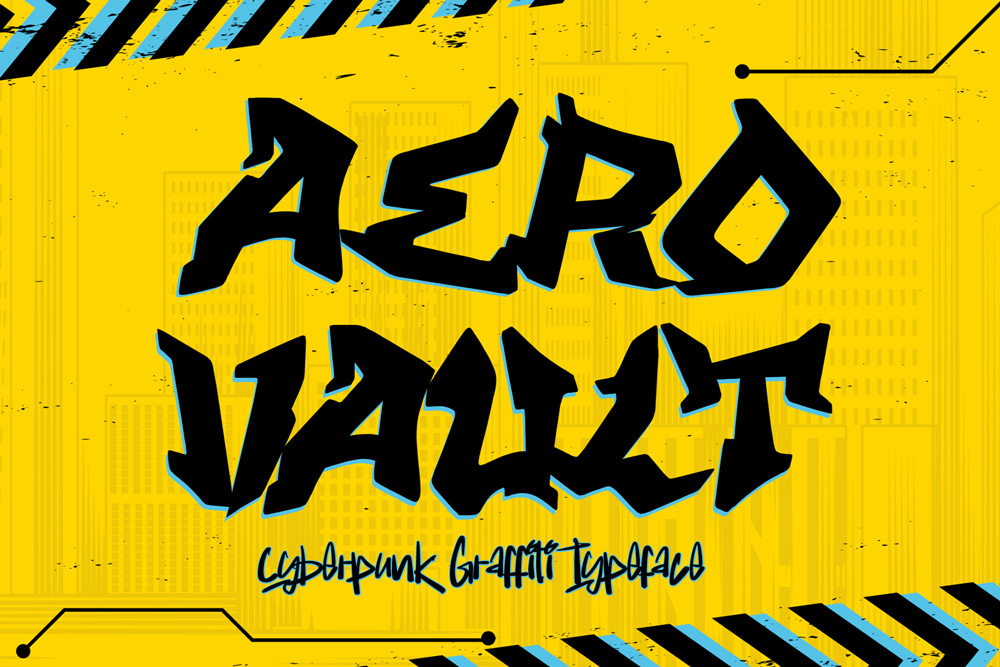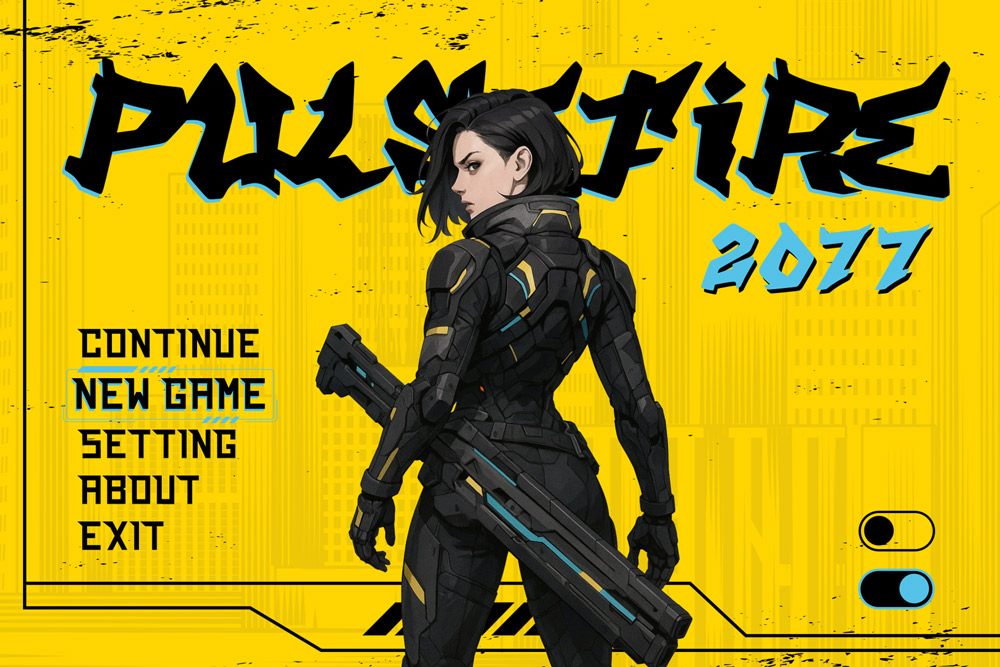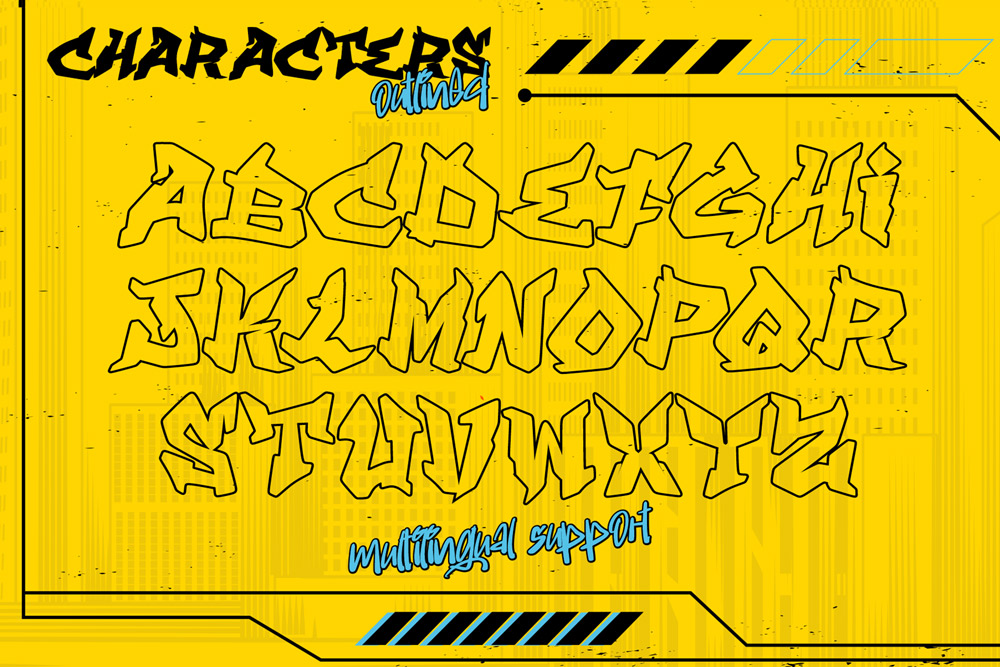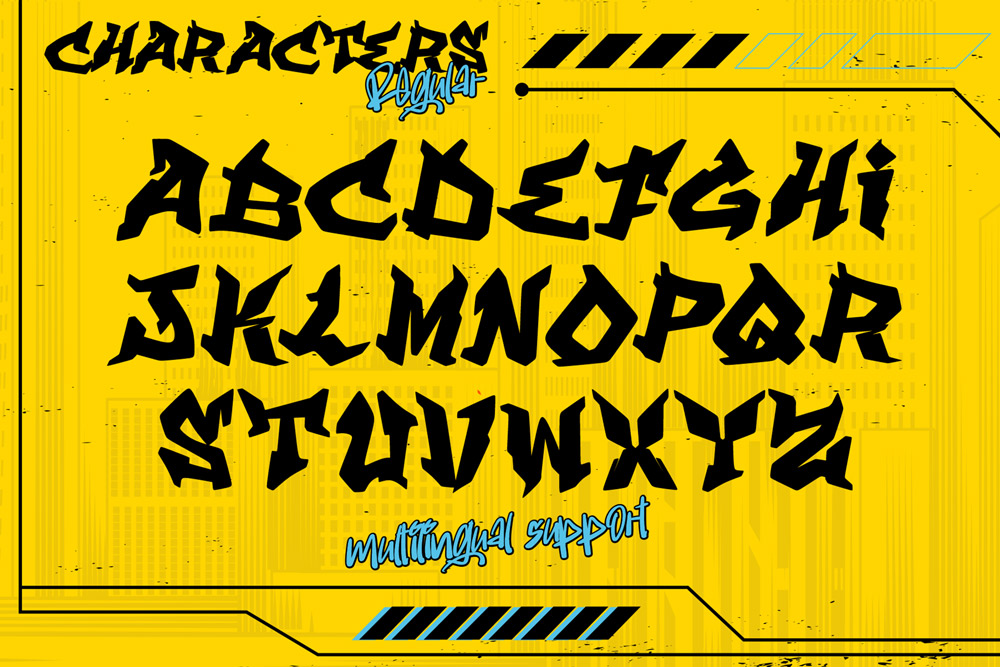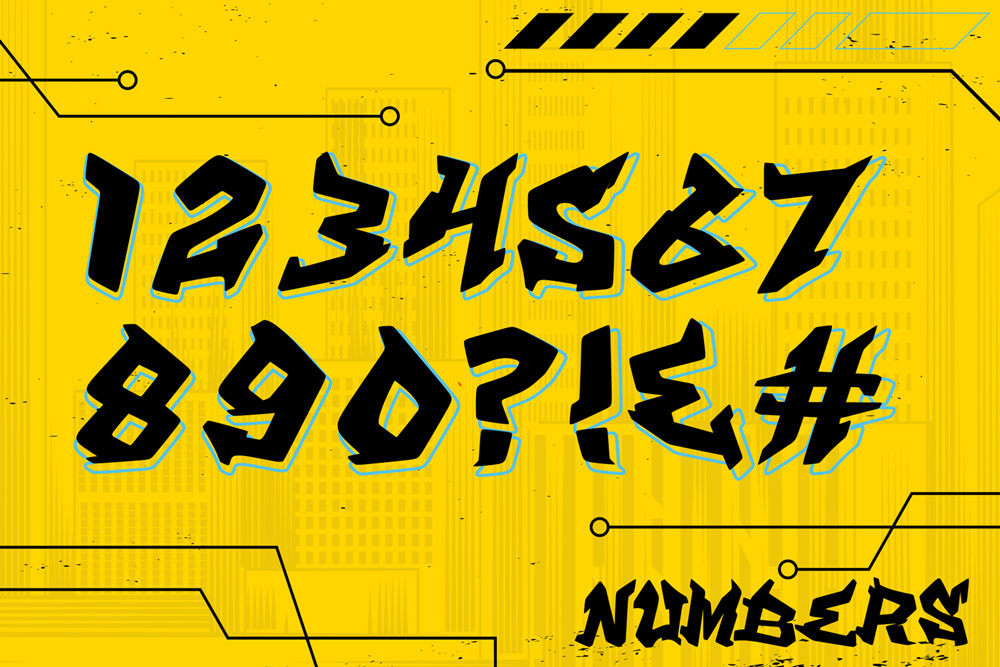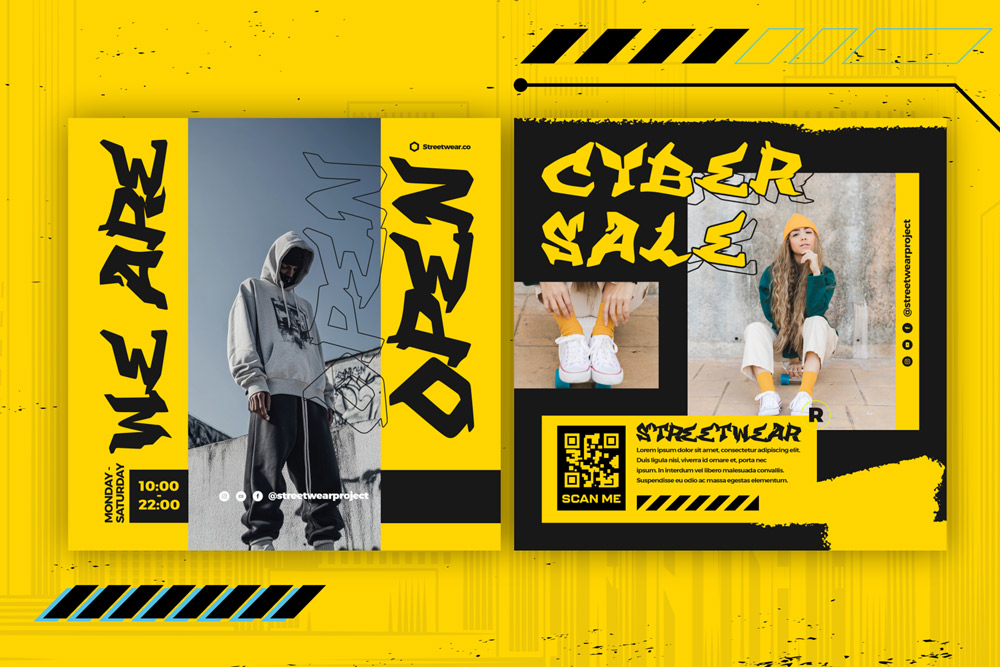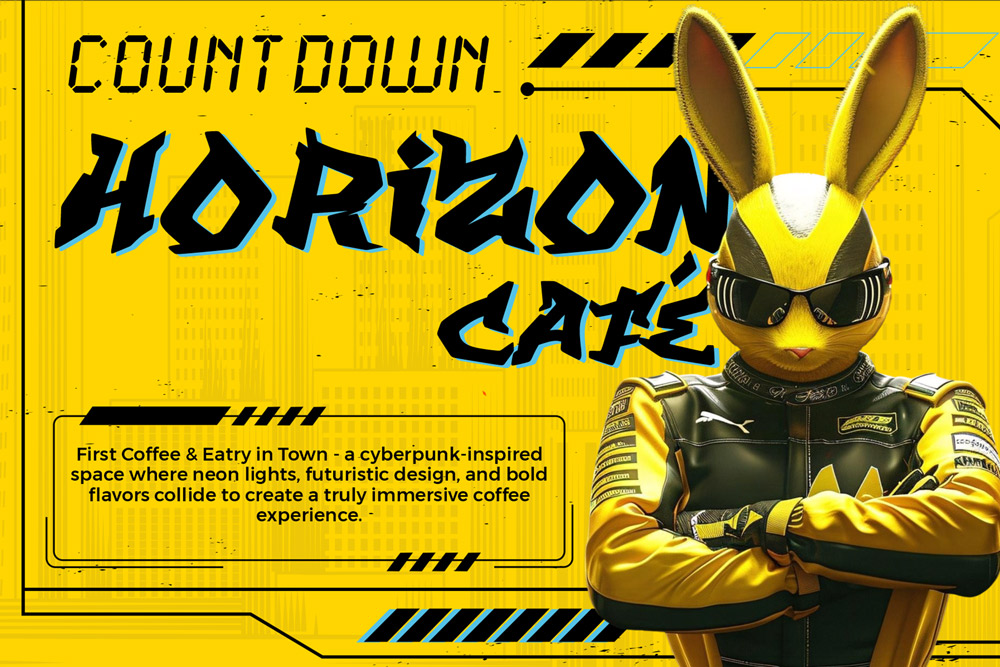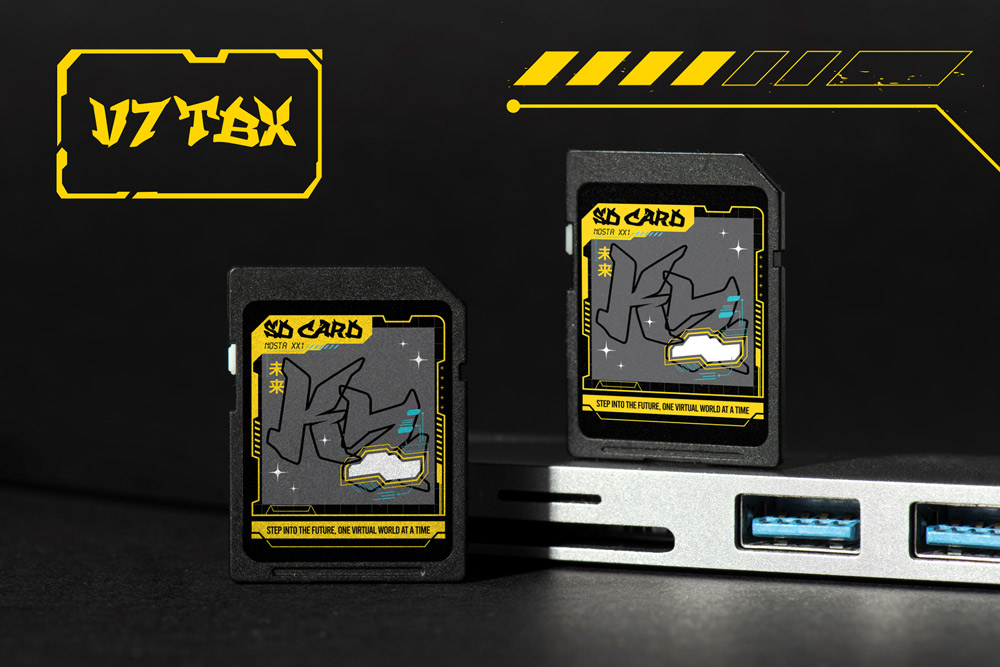
About Aero Vault
Step into the future of street design with Aero Vault – Cyberpunk Graffiti Font, an electrifying typeface that merges futuristic aesthetics with urban graffiti culture. Designed by Cikareotype Studio, this bold font is built for designers who want to blend street rebellion with sci-fi innovation.
Aero Vault captures the intensity of the cyberpunk world—neon lights, holographic signs, and chaotic cityscapes—while maintaining the freehand attitude of graffiti tagging. It’s the perfect fusion of digital rebellion and street authenticity. With uppercase characters, multilingual support, and professional file formats (OTF, TTF, WOFF), Aero Vault delivers high performance and stunning results across every creative platform.
Where Cyberpunk Meets Graffiti
The design of Aero Vault combines the sharp geometry of cyberpunk with the raw energy of graffiti lettering. Every letter feels mechanical yet hand-drawn, sleek yet chaotic — a reflection of futuristic dystopia colliding with the rebellious streets.
If you’re looking for a cyberpunk graffiti font that looks equally good on posters, apparel, gaming logos, or album covers, Aero Vault is built to dominate. Its bold lines and angular cuts give a feeling of motion and power, while its graffiti influence keeps it grounded in authentic street expression.
Whether you’re designing for futuristic tech brands, streetwear labels, or electronic music visuals, Aero Vault makes your message impossible to ignore.
The Perfect Blend of Tech and Street Style
Aero Vault – Cyberpunk Graffiti Font bridges two design worlds: the futuristic glow of cyber typography and the raw emotion of urban graffiti. The result is a typeface that’s simultaneously futuristic and nostalgic, clean yet chaotic.
This unique blend makes it perfect for:
Gaming Titles and Esports Branding – Bring intensity and movement to your logo.
Streetwear & Apparel Designs – Add futuristic street identity to your fashion label.
Music Album Covers – Perfect for EDM, synthwave, trap, and underground genres.
Event Posters & Flyers – For electronic festivals, tech expos, and art installations.
YouTube & Twitch Graphics – Futuristic graffiti type for your streaming brand identity.
Each character in Aero Vault feels alive—crafted to move like energy through a city grid, yet expressive enough to feel handwritten.
If you’re seeking a typeface that fits the trending “tech-meets-streetwear” aesthetic—Aero Vault is your best choice.
✅ Bold Cyber-Graffiti Design: A futuristic look with graffiti-style attitude.
✅ Uppercase Characters: Perfect for strong headlines, titles, and logos.
✅ Multilingual Support: Covers multiple languages for global design flexibility.
✅ High Contrast and Clean Angles: Delivers precision and legibility in all environments.
✅ Unique Cyber Shapes: Inspired by sci-fi lettering and neon graffiti.
✅ Professional Kerning & Spacing: Ensures balance and flow across all compositions.
Why Designers Love Aero Vault
Designers around the world love Aero Vault because it’s not just another graffiti font—it’s a cybernetic evolution of street lettering. It gives you the freedom to design like a graffiti artist and the control of a digital designer.
Here’s what makes it a fan favorite:
Fusion of Cultures: A mix of futuristic cyberpunk vibes with old-school graffiti tagging.
Visual Impact: Every glyph is engineered to pop, even in minimalist layouts.
-
Flexible Aesthetic: Equally effective in tech branding, gaming, fashion, or music.
-
Perfect Pairing: Combine Aero Vault with Death Subway for layered designs—Aero Vault as the base, Death Subway adding dripping street realism.
-
Trend Alignment: Matches current design trends blending urban culture with futuristic aesthetics.
Designers love using Aero Vault because it makes their projects feel cinematic and alive. Its presence demands attention and conveys emotion—perfect for brands that don’t follow rules.
With uppercase characters, multilingual support, and universal file formats (OTF, TTF, WOFF), Aero Vault gives you everything you need to dominate futuristic and urban design spaces. Whether you’re a streetwear designer, digital artist, musician, or gamer, this font helps you communicate strength, rebellion, and innovation.
The future is loud, bright, and dripping with graffiti energy.
Make your mark. Break the rules. Build your world with Aero Vault.